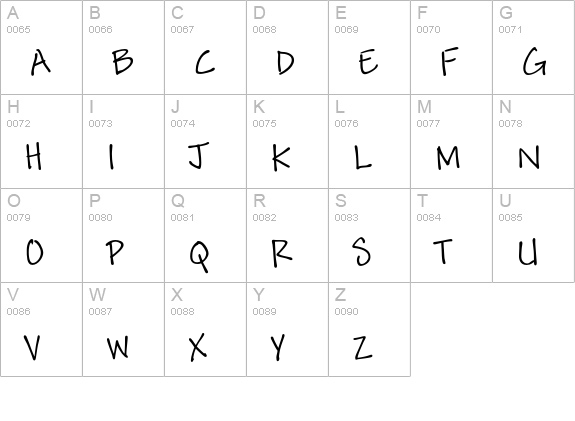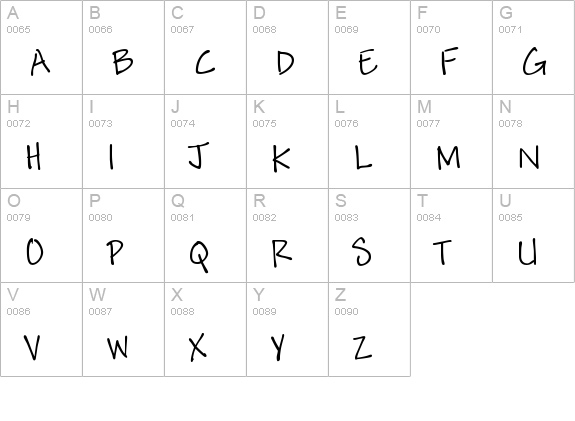
Andy Std Font Details
The Andy Std font is a versatile and modern typeface that adds a touch of sophistication to any design project. With its clean lines and elegant curves, this font is perfect for a wide range of applications, from branding to editorial design. Whether you're creating a logo, poster, or website, Andy Std will add a professional and polished look to your work. What's even better is that Andy Std is available for free download at FontsMarket.com. This means you can easily access this high-quality font without breaking the bank. Don't miss out on the opportunity to enhance your designs with the timeless appeal of Andy Std. Download it today and elevate your creative projects to the next level!